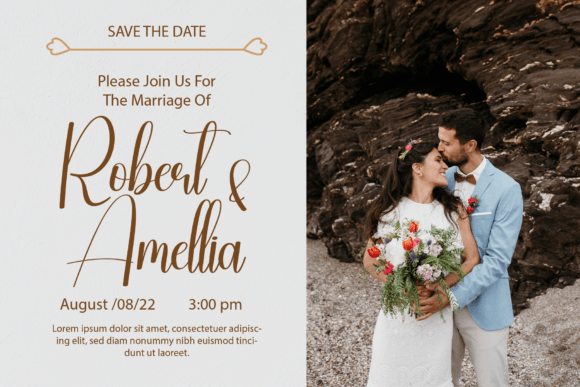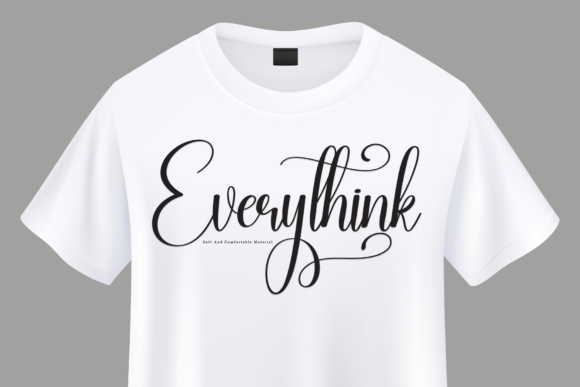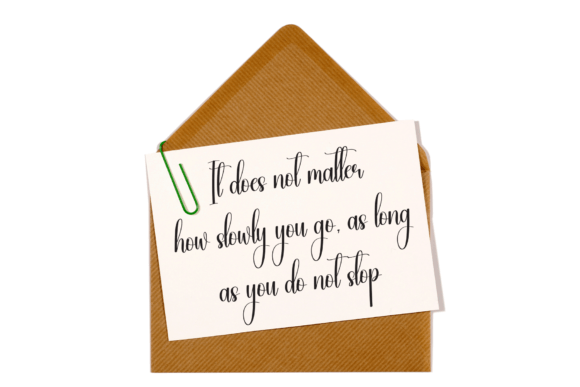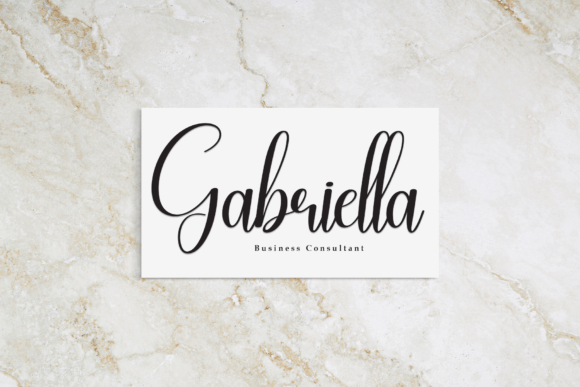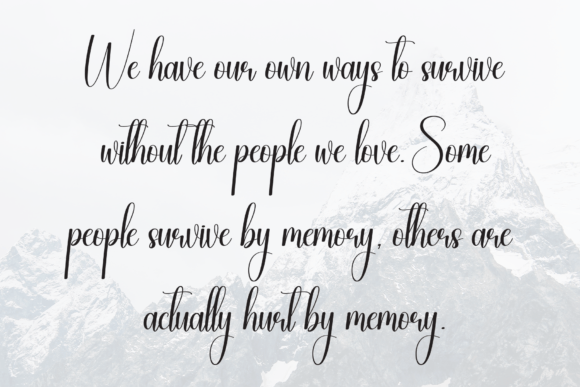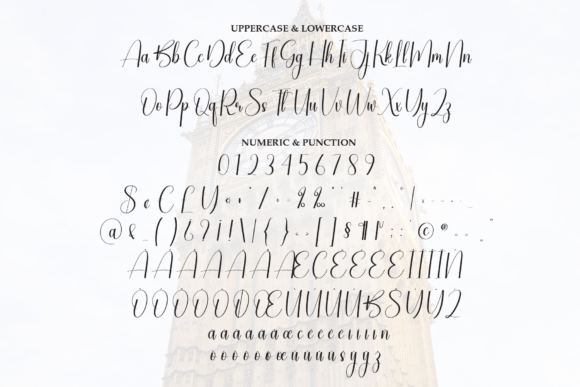
Introducing Bigtime Font: The Elegant and Timeless Choice for Designers
Are you looking for a font that exudes elegance and sophistication? Look no further than Bigtime Font, a beautiful flowing handwritten font that is sure to capture your heart. With its incredibly distinct and timeless style, Bigtime Font is perfect for designers and crafters who want to create spectacular designs that stand out from the crowd.
The Characteristics of Bigtime Font
Bigtime Font is a handwritten font that boasts an elegant touch, making it ideal for a wide range of projects. Its flowing lines and curves create a sense of movement and fluidity, giving your designs a dynamic and eye-catching feel. The font’s unique style is both classic and modern, making it versatile enough to be used in various design contexts, from logos and branding to invitations and digital media.
Why Choose Bigtime Font?
So, what sets Bigtime Font apart from other fonts? Here are just a few reasons why designers and crafters are falling in love with this beautiful font:
• Elegant and sophisticated: Bigtime Font has an undeniable air of elegance, making it perfect for designs that require a touch of luxury and refinement.
• Unique and distinctive: The font’s flowing lines and curves create a unique and distinctive style that will set your designs apart from the crowd.
• Timeless: Bigtime Font has a timeless quality that ensures your designs will remain stylish and relevant for years to come.
• Versatile: The font is versatile enough to be used in a wide range of design contexts, from digital media to print materials.
Using Bigtime Font in Your Designs
Bigtime Font is incredibly easy to use and can be incorporated into your designs in a variety of ways. Here are a few ideas to get you started:
• Logos and branding: Use Bigtime Font to create a unique and memorable logo that reflects your brand’s personality and style.
• Invitations and events: Add a touch of elegance to your invitations and event materials with Bigtime Font.
• Digital media: Use Bigtime Font in your digital media, such as social media graphics, blog posts, and website headers.
• Print materials: Bigtime Font is perfect for print materials, such as brochures, flyers, and business cards.
Tips for Getting the Most Out of Bigtime Font
To get the most out of Bigtime Font, here are a few tips to keep in mind:
• Experiment with different sizes: Bigtime Font looks great in a variety of sizes, so don’t be afraid to experiment to find the perfect size for your design.
• Pair with other fonts: Bigtime Font pairs well with other fonts, so try combining it with a bold font for added contrast.
• Use it sparingly: While Bigtime Font is beautiful, it can be overwhelming if used too much. Use it sparingly to create a focal point in your design.
In conclusion, Bigtime Font is a beautiful and elegant handwritten font that is perfect for designers and crafters who want to create spectacular designs. With its unique and timeless style, Bigtime Font is sure to capture your heart and become a go-to font in your design arsenal. So why wait? Fall in love with Bigtime Font today and start creating stunning designs that will leave a lasting impression!